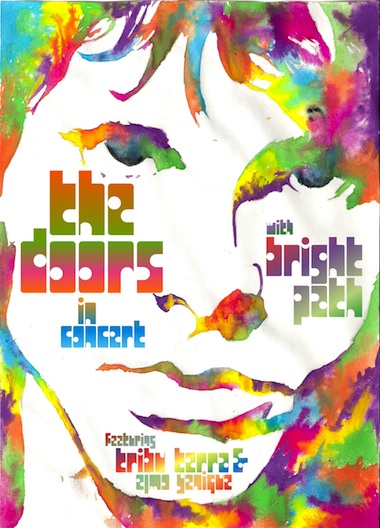
zpanish caravan eYe/FS
by elmoyenique
Minamalism with character - now that takes some doing. A great bit of design. 10/10
I like it. Some glyphs look like biscuits with bite marks. Or sliced cheese. (I must be a bit hungry.) Great colourful demo pic. 10/10
@ptnut and @Frodo7: Thakns a lot, dear pals, for your kindly apports to my simple works. IMHO, noone font, however small or poor it may be, should stay out of FS world. And talking about me, I love the 60-70s fonts, and this one try to be a little hommage for all these great typographers from these years.
yeah! good work - i really like the sample
I just discovered this, it reminds me of very recent fonts that were inspired by 'FORE' which we saw when it was inserted into the gallery feed. The sample is perfect in style, colours and subject.
Yes, elmoyenique's "zpanish caravan eYe/FS" looks like Aeolien's "Emmental" (or conversely).